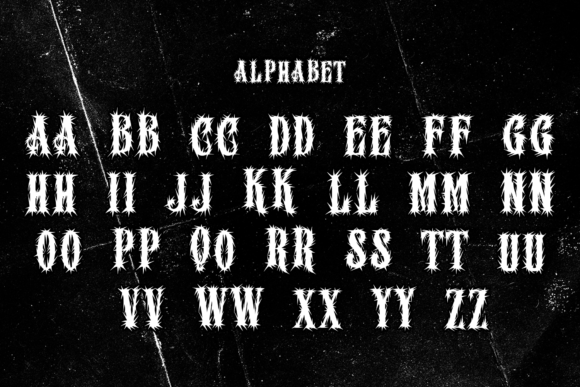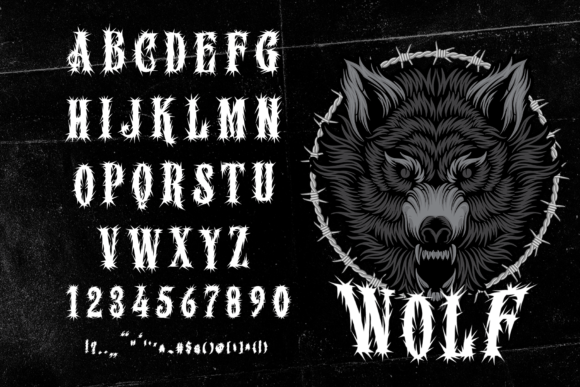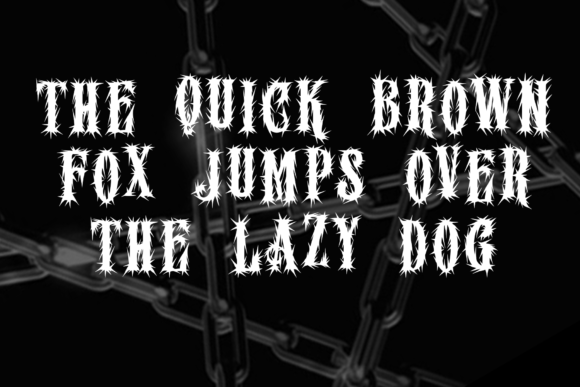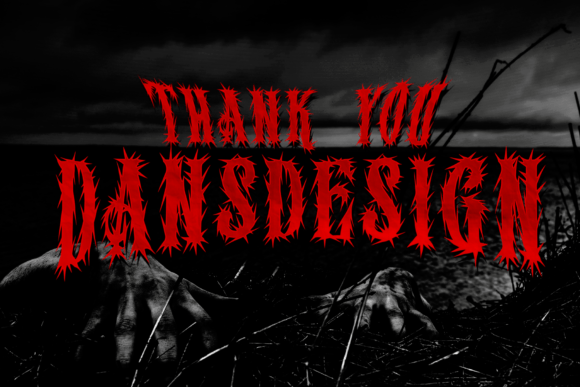
Introduction to Salvators Font
Do you ever find yourself scrolling through design inspiration boards, feeling stuck and unsure of how to bring your creative project to life? I know I do. That’s when I stumbled upon the Salvators Font – a game-changing design resource that has become my go-to solution for adding an extra layer of sophistication to my designs. With its modern and influential style, Salvators Font is the perfect way to elevate your creative project and make it truly unforgettable.
Key Features of Salvators Font
- High-quality, professional font design for creative projects and design resources.
- Each character is carefully crafted with a high resolution of 300 DPI, ensuring crisp and clear text in various sizes.
- Unique characteristics include elegant lines, sophisticated curves, and a touch of modern flair, making it perfect for artistic and creative projects.
- Salvators Font is a versatile design resource suitable for a wide range of applications, from print materials to digital media.
Honest Review: Salvators Font
As a designer, I’m always on the lookout for high-quality fonts to elevate my creative projects. Recently, I came across Salvators Font, and I’m excited to share my honest review.
What works well: ✨ The Salvators Font has a unique, modern design that’s perfect for contemporary creative projects. The font is highly versatile, making it suitable for a wide range of applications, from digital media to print materials. I particularly appreciate the transparent background option, which allows for seamless integration with other design elements.
- High-quality design: The font’s modern design is well-executed and visually appealing.
Any limitations: ⚠️ While Salvators Font is an excellent addition to any designer’s resource library, it may not be suitable for projects that require a more classic or traditional font style. Additionally, the font’s unique design may not be suitable for all audiences, particularly those who prefer more conservative typography.
Overall impression: I’m impressed with Salvators Font’s modern design and versatility. While it may have some limitations, it’s an excellent resource for designers who need a high-quality, free font for their creative projects.
Salvators Font is commonly used in graphic design, digital art, and typography projects. To get the most out of it, use it in combination with other design elements, such as images and shapes, to create visually appealing compositions. Experiment with different font combinations and styles to achieve a unique look for your project.